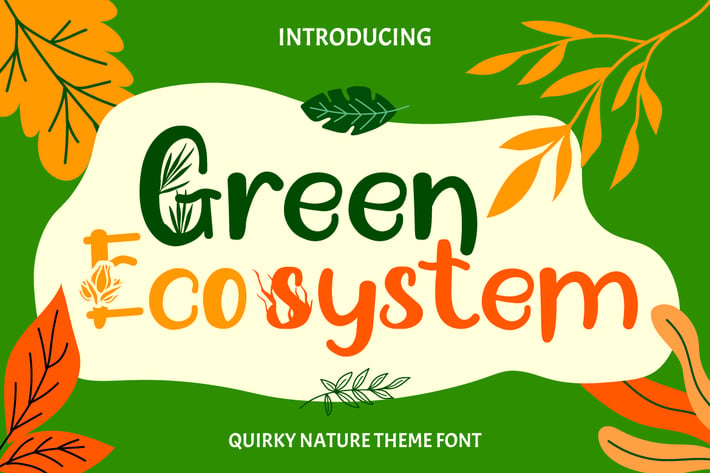
Green Ecosystem - Quirky Nature Theme Font
Introducing “Green Ecosystem,” a quirky nature-themed font that embodies the playful and whimsical essence of nature. This unique display font, crafted with precision, is characterized by its bouncy and thin-thick lettering style, making it a perfect choice for various applications. Inspired by leaves, trees, flowers, branches, roots and the playful spirit of children and crafters alike; every stroke encapsulates fun and creativity.
With six distinct variations tailored to fit its theme perfectly, Green Ecosystem is versatile. Whether used individually or combined harmoniously with its variations - each style tells a story of nature’s playful quirks. Available in both OTF and TTF file formats for easy integration.
Ideal for logos that need that touch of natural whimsy or branding that seeks to be memorable and rooted in nature’s beauty. Children’s themes come alive; crafting projects are imbued with an organic touch; invitations carry the whisper of earthy elegance; packaging tells tales of nature’s bounty - every application becomes a narrative.
Feature :
- Numerals And Punctuations
- Opentype (Alternates Or Ligatures)
- PUA-Encoded